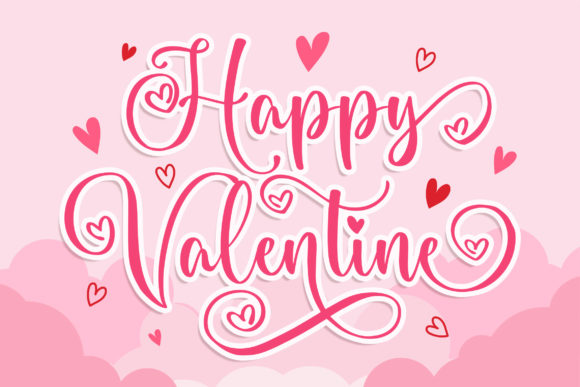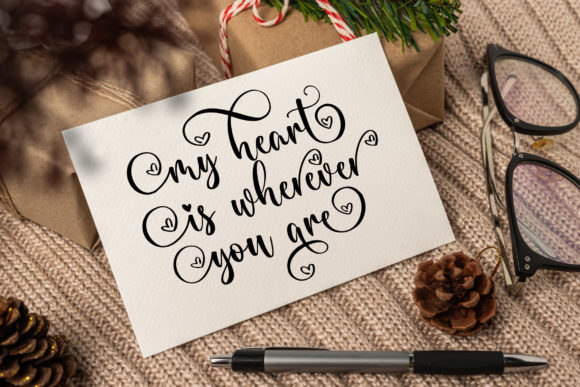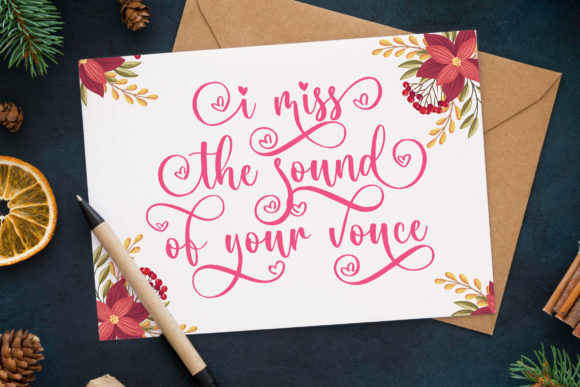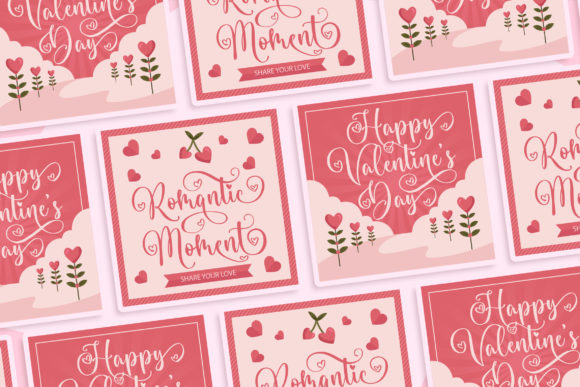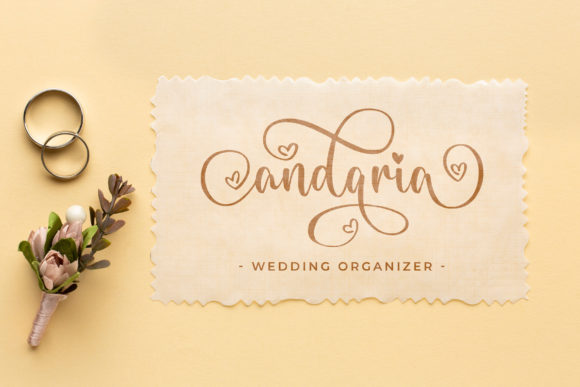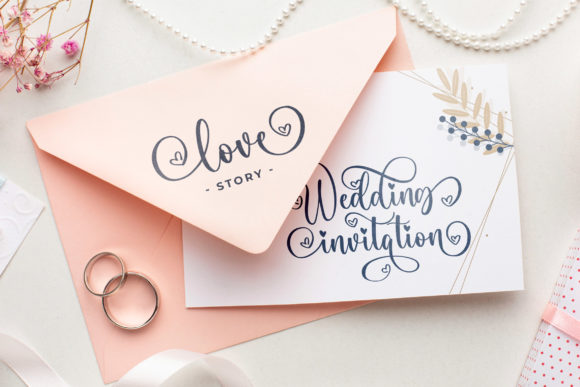
Introduction to Romantic Heart Font
Have you ever been brainstorming a creative project, only to find yourself stuck on the perfect font to match your vision? We’ve all been there, scrolling through design resources, searching for that elusive font that perfectly captures the essence of our idea. For those special moments, I’d like to introduce you to the Romantic Heart Font – a ravishing handwritten font that’s sure to steal the show.
Whether you’re designing a romantic greeting card, a wedding invitation, or a headline that demands attention, the Romantic Heart Font is the perfect addition to your design toolkit. With its wide spectrum of applications and PUA encoded features, you’ll be able to access all of its beautiful glyphs and swashes with ease, giving your project a high-quality, transparent background that’s simply irresistible.
- Designed with love and care, featuring intricate details and ornate elements that evoke a sense of romance and whimsy
- Perfect for adding a touch of elegance and sophistication to wedding invitations, greeting cards, and other creative projects
Honest Review: Romantic Heart Font
I recently had the chance to work with the Romantic Heart Font, and I must say it’s a lovely addition to any design project. This font is perfect for creating a whimsical, dreamy atmosphere, making it ideal for Valentine’s Day, wedding invitations, or any other romantic-themed creative project.
- High-quality design with intricate details ✨
- Transparent background makes it easy to customize and combine with other design elements ✨
- Only available in a limited range of sizes, which might be a concern for more complex designs ⚠️
- Some users may find the font too ornate or overwhelming ⚠️
Overall, I’m quite impressed with the Romantic Heart Font. It’s a beautiful, high-quality design resource that can add a touch of elegance and romance to any creative project. While it may have some limitations, I believe it’s definitely worth considering for any designer looking to add a unique and whimsical element to their work.
The Romantic Heart Font is a high-quality, free download design resource ideal for creative projects requiring a touch of romance. This versatile font features a transparent background, making it easy to layer and combine with other design elements.
The Romantic Heart Font is perfect for:
- Valentine’s Day and romantic holiday designs.
- Love-themed posters and social media graphics.